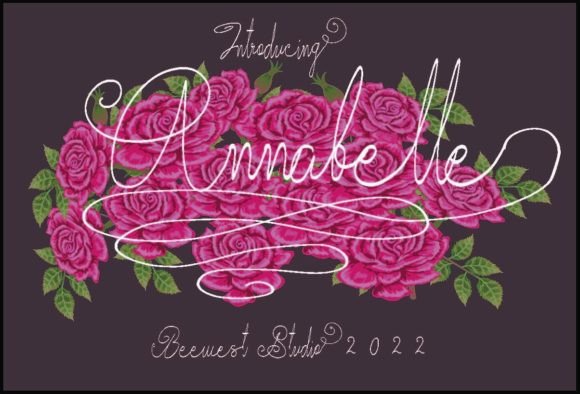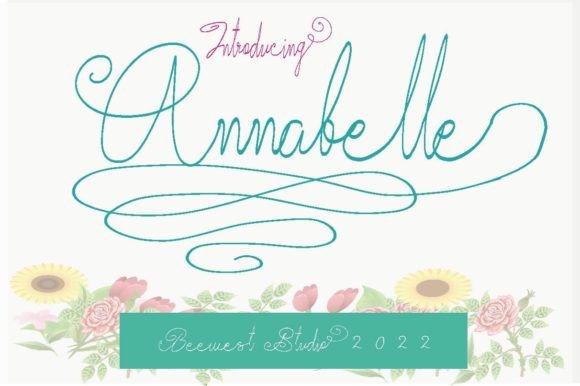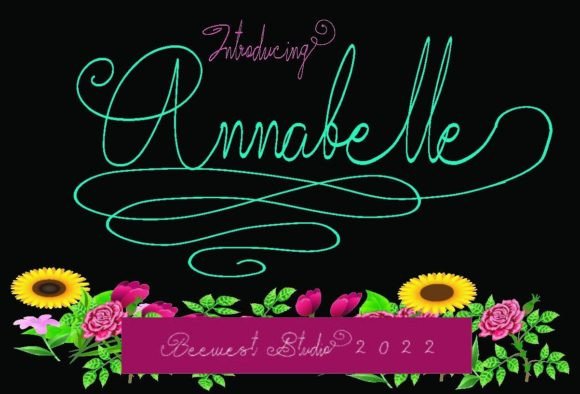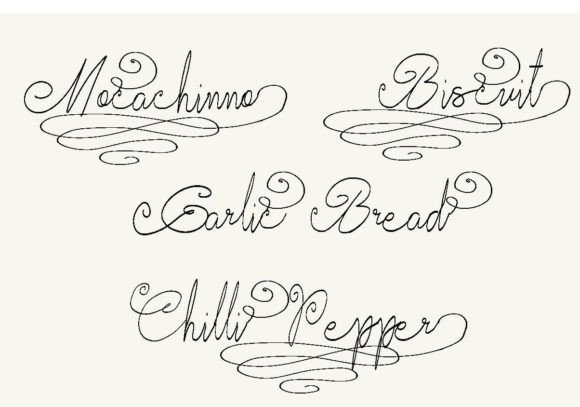
Annabelle Font
About Annabelle Font
“Annabelle” is a delightful and approachable handwritten font that radiates sweetness and friendliness. Its natural and unique style adds a warm and personal touch to a wide variety of designs, making it a versatile choice for creative projects. The font’s charming appeal and adaptability allow it to complement a diverse range of themes and aesthetics, making it suitable for everything from casual to elegant designs.
With “Annabelle,” the possibilities are virtually limitless. Its friendly demeanor and organic flow make it incredibly fitting for numerous applications, such as greeting cards, invitations, social media posts, branding materials, posters, packaging, and more. Whether you’re creating a cozy atmosphere with handwritten quotes, adding a personal touch to invitations, or infusing warmth into your social media presence, “Annabelle” seamlessly blends into your creative vision.
One of the strengths of “Annabelle” lies in its natural and effortless appearance. The font captures the essence of handwritten authenticity, making your text feel genuine and relatable. Its friendly and approachable vibe resonates with audiences, creating a connection that goes beyond mere visuals. “Annabelle” adds a human touch to your designs, making them more engaging and emotionally appealing.
The beauty of “Annabelle” lies in its ability to enhance the overall atmosphere of your designs. Whether you’re designing for personal projects, small businesses, or large-scale campaigns, this font adds a touch of charm and personality that captivates viewers. Its versatility allows you to experiment with various styles, ensuring that your designs are as unique and creative as your imagination allows.
By embracing “Annabelle,” you’re not just using a font; you’re infusing your projects with a sense of warmth and friendliness. Its sweet and natural handwritten style creates an inviting and pleasant experience for your audience, leaving a lasting impression. So, let your creativity run wild, and watch as “Annabelle” transforms your ideas into heartwarming and visually appealing designs that capture the hearts of those who see them.